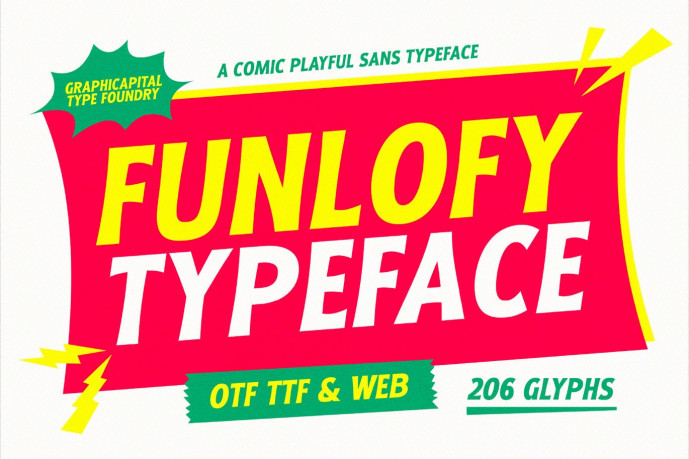
Funlofy Font
Designer: Graphicapital
Funlofy Font is a sans-serif typeface inspired by comic books, featuring bold, dynamic shapes and a cheerful personality. Perfect for posters, headlines, packaging, branding, and playful, lighthearted designs.